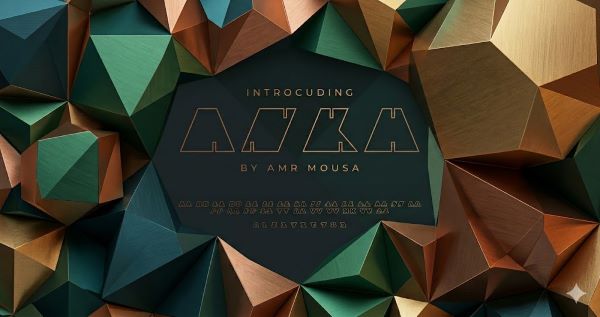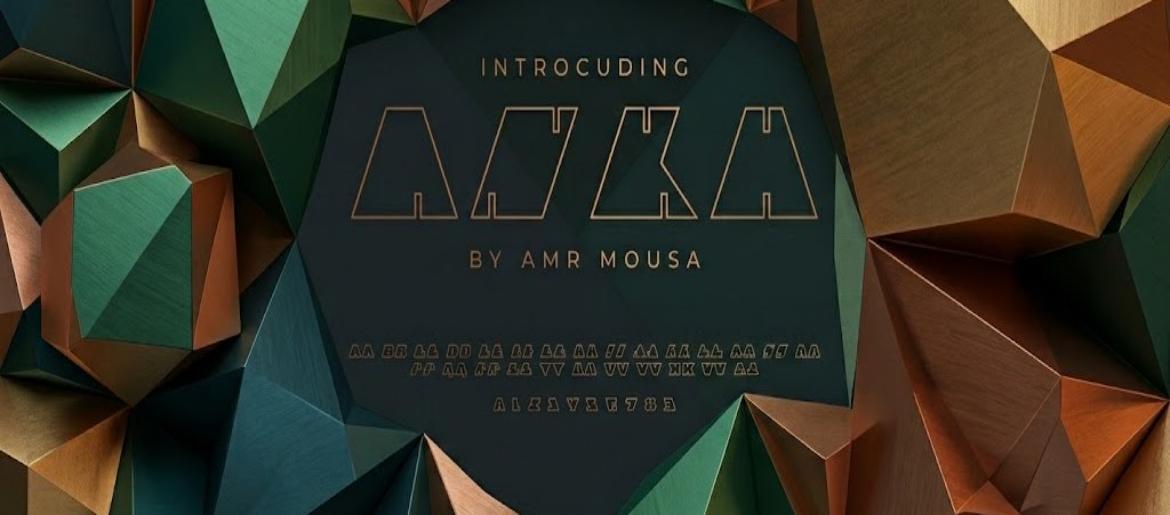
ANKH Font
ANKH is a bold geometric display typeface by Amr Mousa, rooted in the intricate geometry of ancient Egyptian architecture and born as an experimental passion project during Typoday2020 in Amman, Jordan. Its heavy block construction, outlined variants, and striking visual weight make it an instant attention-grabber for headlines, titles, poster design, and brand identity work that needs to make a culturally resonant statement. The historical foundations give it a gravitas that purely abstract geometric fonts rarely achieve. Free for personal and commercial use.